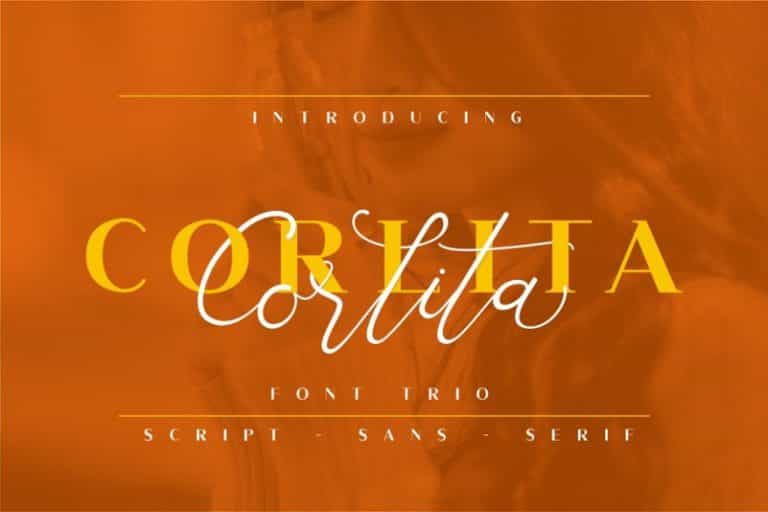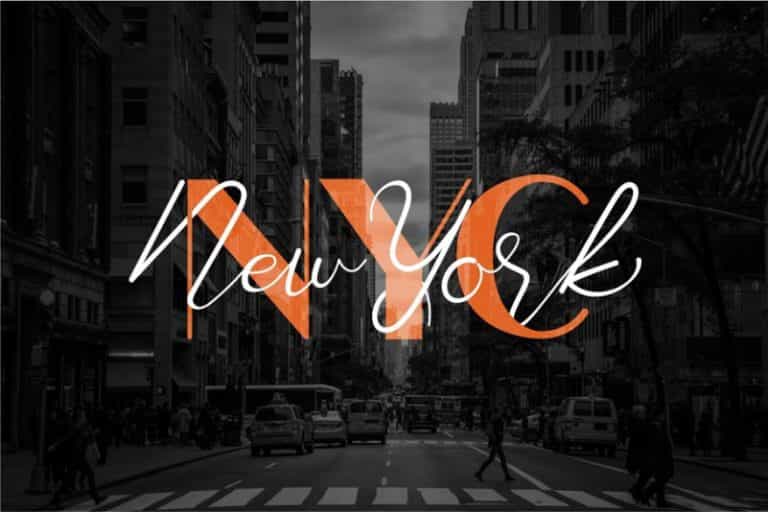
Discover Corlita Font Trio, part of the Sans Serif Handwritten collection—a versatile and unique font perfect for adding a personal touch to your projects. Download it for free and enjoy crafting designs with style, from invitations to social media posts. This font is available exclusively for personal use, giving you the freedom to create without limits. Unlock your creativity with Corlita Font Trio today!
Introduces the newest product Corlita Font Trio. CORLITA is a very nice and up-to-date font trio (sans, serif and script). A perfect couple can be made to blend together. CORLITA is a perfect choice for branding, wedding invitation and card, elegant logo, poster, packaging, stationery, website etc.